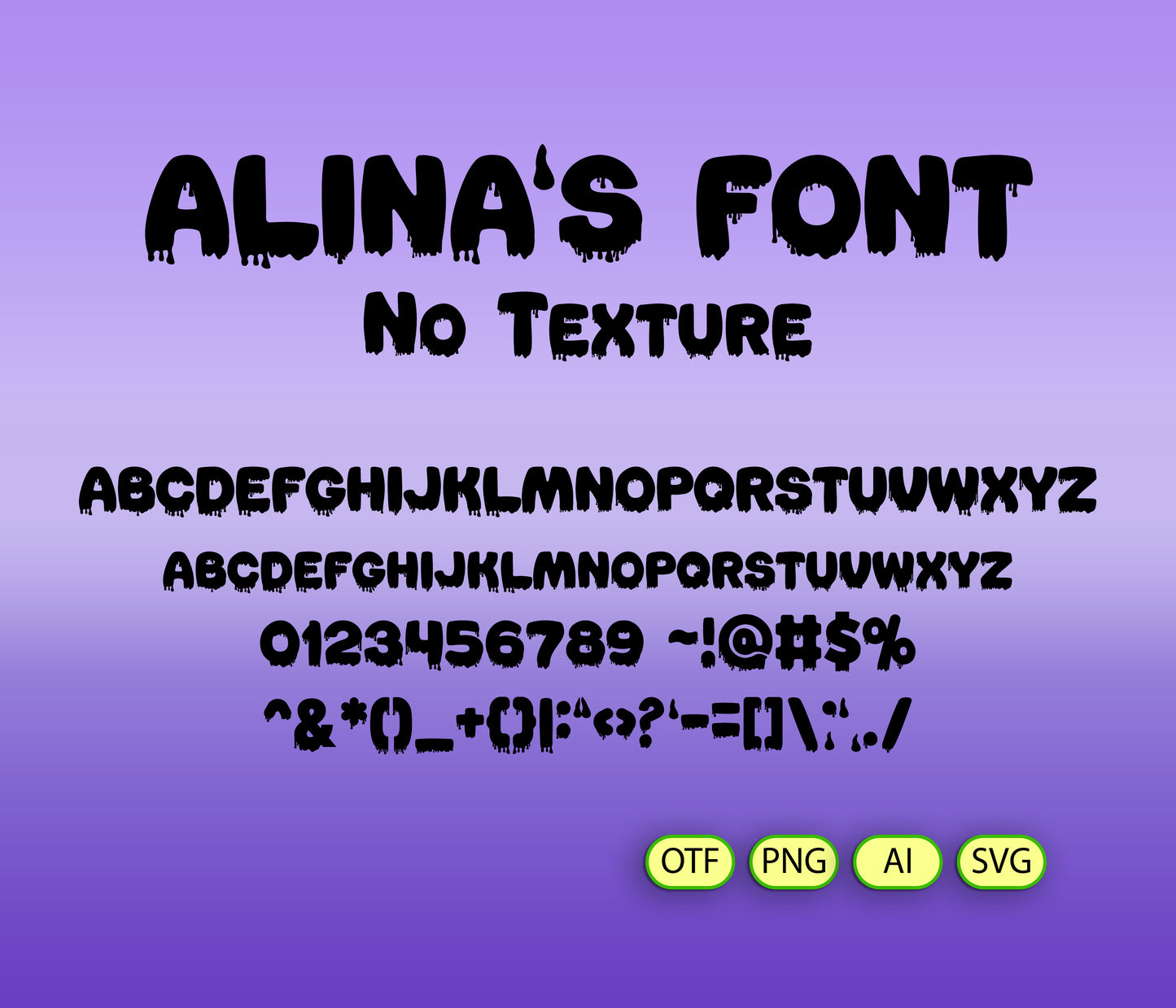
Halloween Goo Font Dripping Terror
Step into the sinister world of viscous nightmares with our Halloween Goo font, capturing the essence of oozing horror and creeping dread. Perfect for fright nights, spook house designers, eerie content creators, and creative professionals, this font brings the ghastly, dripping spirit of Halloween terror to your projects. Create hair-raising invitations, monster-themed merchandise, or digital content with the sticky, suspenseful energy of ultimate Halloween chills.
Our Halloween Goo font features melting, flowing shapes and bold characters reflecting the liquid yet menacing aesthetic of Halloween fright scenarios. Ideal for:
- Fright Events: Create attention-grabbing invites, posters, and banners for Halloween parties, haunted maze experiences, and terror-themed gatherings
- Creepy Design: Perfect for book covers, movie promotions, and horror-themed party accessories that capture supernatural dread
- Digital Media: Enhance websites, blogs, and social media with dramatic headers and graphics that express fear and chilling atmosphere
- Entertainment Content: Add authentic character to Halloween materials, decoration designs, and promotional materials for scary events
- Personal Projects: Bring frightening edge to scrapbooking, DIY crafts, and home decor inspired by the aesthetics of Halloween terrors